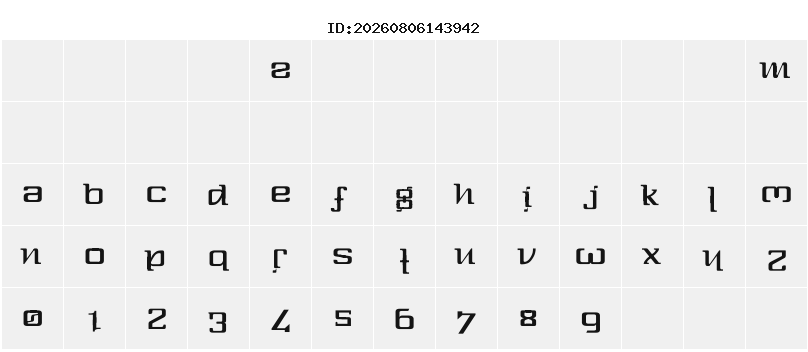
• Font Name: One-Eighty
• Designer: S4E - Darren Rigby
• Manufacturer: Starving-4 Entertainment
• Description: Invertible font
About One-Eighty.ttf
One-Eighty.ttf is a modern, elegant sans-serif font designed for ultimate readability and visual harmony. Perfect for branding, headlines, web design, and print materials.